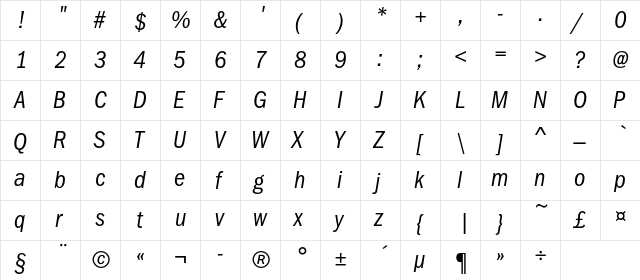
FranklinGothicBookCondC Italic Font Preview
Design Context for FranklinGothicBookCondC Typeface
FranklinGothicBookCondC has the quiet confidence of well-executed sans-serif typography: versatile, unobtrusive, and dependable at any size. Its italic angle brings a sense of urgency and motion to the letterforms. The condensed width makes it efficient for tight spaces without sacrificing legibility.
Font Pairing: Works well alongside a characterful serif or display font that can carry the expressive load while FranklinGothicBookCondC handles the functional copy.
Pro Tip: Try FranklinGothicBookCondC in all-caps with moderate tracking for navigation and label copy — it performs well in systematic UI contexts.